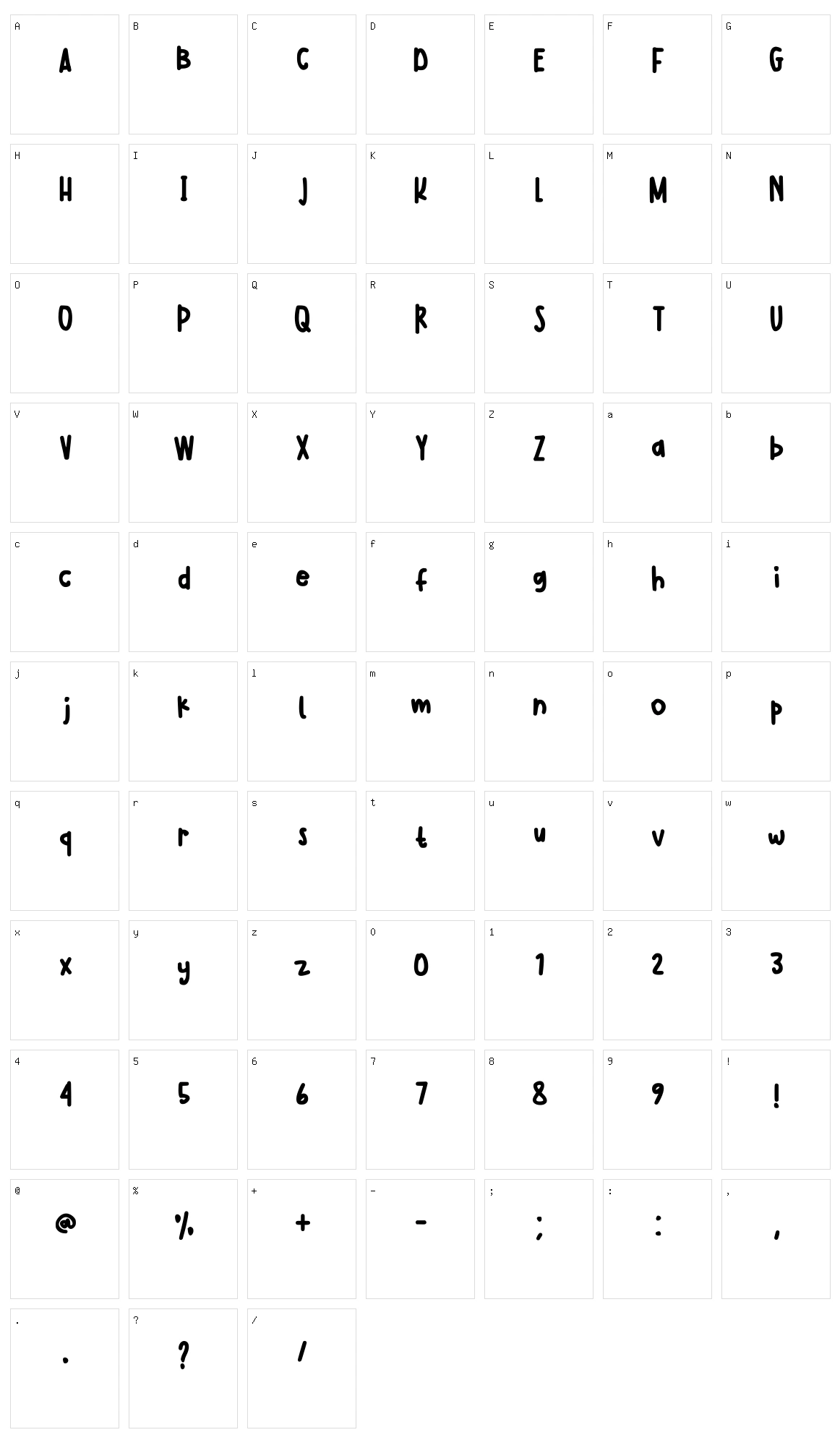
The free font Ginny is carefully designed by createshaa, showcasing a thoughtful balance of creativity and usability and falls under the Script font style. When you download the ZIP file, it contains only 8.11 KB of font files, making it lightweight and quick to download. Please review the license details below to understand permitted usage and distribution rights. If license information is not available, we recommend using this font for personal projects only or contacting the author directly for commercial usage permissions.